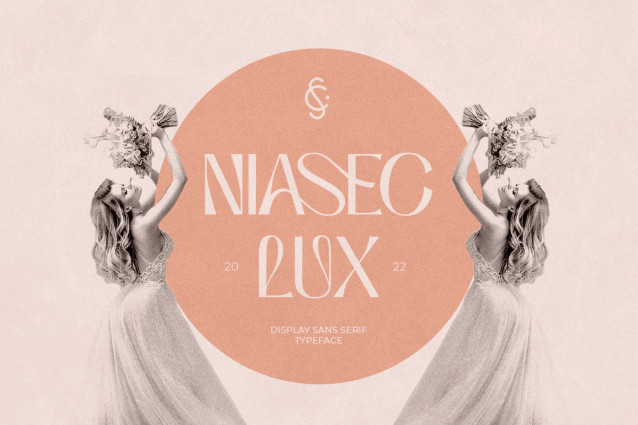
Niasec Lux Font
This time we want to experiment with organic-looking curves at certain angles in the typeface. This Typeface called Niasec Lux. We create the original form as the curve’s spindle but do not force it to happen to incompliant letterform. This is also done as a contrast value on each side. We figure out the leterform in such a way, which is not disturbed by additional indentation as a point for the letters’ authenticity. A little touch of calligraphy refers to the initial form and exploratory line movements to decorate the stylistic set and ligatures.
Niasec Lux Display come with stylistic alternates, ligature, and multi-language support. Then add to the proportions of numbers and symbols in harmony with the basic letters, this is a versatile font to give a stand out vibe on your typography works. fashion, aesthetic, fancy, feminine, stylish, branding, modern, clean, creative, curve, typeface, magazine, clothing, minimalist, packaging, social media, letter, logo, royal, web, beauty